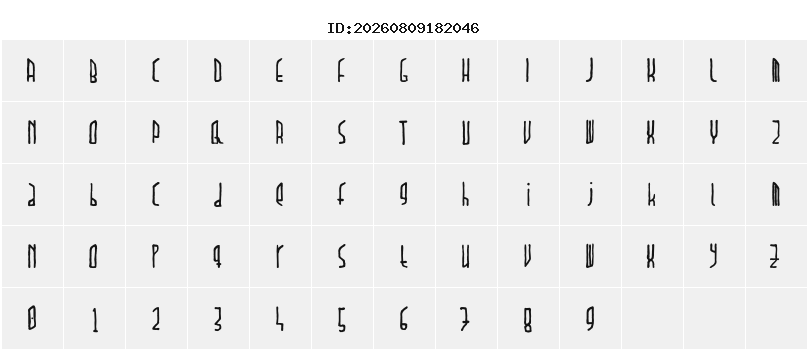
Paradox Preview
• Font Name: Paradox
• Designer: dawnland
About Paradox.otf
Paradox.otf is a modern, elegant sans-serif font designed for ultimate readability and visual harmony. Perfect for branding, headlines, web design, and print materials.